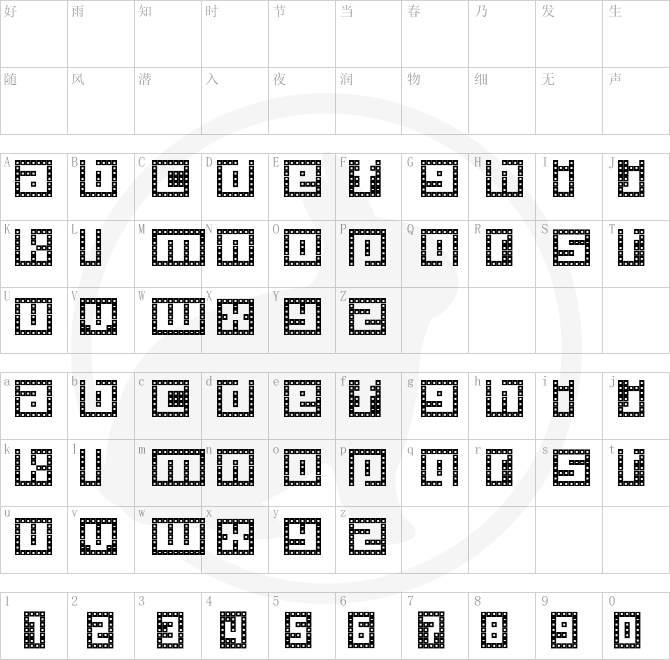
- Font Name:Vacarely
Vacarely-Shell.ttf is a very beautiful artistic font, Vacarely-Shell.ttf is widely used in the design and printing of various books and pictures,Vacarely-Shell.ttf has a strong visual impact,Vacarely-Shell.ttf is a commonly used font in newspapers, magazines and books, and is used in posters, e-commerce Poster design, store design, logo design, font design and other fields.Vacarely-Shell.